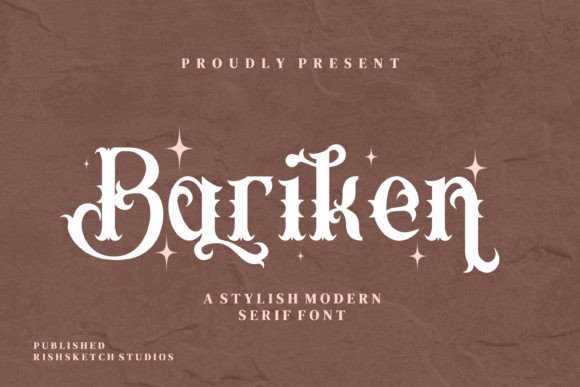
Discover the Timeless Elegance of Bariken Font
Do you remember the moment when you stumbled upon the perfect font for your next design project? The one that made everything click into place and you couldn’t wait to get creative? For many designers, that moment is just around the corner with the introduction of Bariken Font. This charming and elegant serif font is more than just a pretty face – it’s a versatile tool that can elevate your designs from ordinary to extraordinary.
Whether you’re crafting wedding invitations, designing beautiful stationery, or creating eye-catching social media posts, Bariken Font is the perfect companion to bring your ideas to life. Its timeless elegance and sophistication make it a valuable addition to any designer’s toolkit, and its incredible versatility ensures that you’ll find a use for it in every project. With Bariken Font, the possibilities are endless, and your creativity will soar.
Bariken Font Key Features
- Font Family: Bariken is a unique, hand-drawn font family with a modern and elegant design.
- Unique Characteristics: Features distinctive, hand-drawn strokes and flourishes that add a touch of elegance and sophistication to any design.
Review: Bariken Font
As a designer, I was excited to try out the Bariken font, and here’s my honest review. ✨ One thing that really stands out is the unique blend of modern and traditional elements in its design. The font’s bold lines and geometric shapes create a striking visual impact, making it perfect for headlines and titles.
Another aspect that I appreciate is the font’s versatility. It comes in a range of weights and styles, from light to bold, and even has a few script variations. This makes it easy to use in various design contexts, from digital interfaces to print materials.
- Unique blend of modern and traditional elements
- Excellent for headlines and titles
- Versatile, with multiple weights and styles
- Works well in digital and print contexts
- May not be suitable for body text due to its bold lines
- Some characters may appear pixelated at certain font sizes
- Not ideal for lengthy text due to its lack of subtlety
Overall, I think Bariken font is a great choice for designers who want to add a touch of sophistication and modernity to their designs. While it may have some limitations, its unique design and versatility make it a valuable addition to any design toolkit.
Tips for Getting the Most Out of Bariken Font
1. Use the Bariken font for headings and titles to add a touch of elegance.
2. Experiment with different font sizes and styles to create visual interest.
3. Pair the Bariken font with other elegant fonts for a sophisticated look.
2. Luxury branding and marketing materials.
3. High-end fashion and beauty designs.
Alternatives to Bariken Font
Great Vibes is a modern, elegant script font ideal for creative projects, invitations, and advertisements. It features a flowing, cursive design with a touch of sophistication.
Great Vibes Font is more elegant and sophisticated compared to Bariken Font, making it suitable for high-end projects. However, it lacks the rustic, handwritten feel of Bariken Font.
Pacifico is a beautiful, elegant script font that evokes a sense of relaxation and serenity. It’s perfect for projects that require a touch of sophistication and calmness.
Pacifico Font is more refined and polished than Bariken Font, making it suitable for projects that require a sense of elegance and sophistication. However, it lacks the playfulness and whimsy of Bariken Font.
Dancing Script is a lively, energetic script font that’s perfect for creative projects, social media, and advertisements. It features a dynamic, handwritten design with a touch of playfulness.
Dancing Script Font is more playful and energetic compared to Bariken Font, making it suitable for projects that require a sense of fun and excitement. However, it lacks the rustic, vintage feel of Bariken Font.
Q: Is Bariken optimized for digital use?
Yes, Bariken is optimized for digital use, with a focus on legibility and readability on screens. The font is designed to work well at various font sizes and resolutions, making it ideal for digital products, websites, and mobile applications.